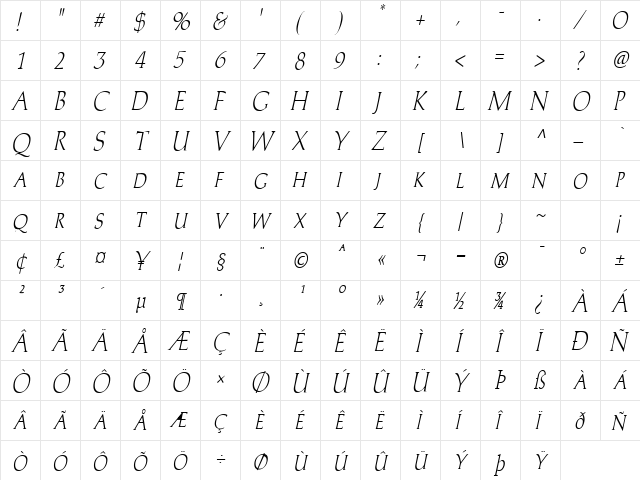
Trajan'sCapsCondensed Italic Font Preview
Design Context for Trajan'sCapsCondensed Typeface
Trajan'sCapsCondensed is a composed and adaptable typeface that performs quietly and consistently across a wide range of design contexts. The slanted form adds forward momentum and visual energy. The condensed width makes it efficient for tight spaces without sacrificing legibility.
Pro Tip: Try Trajan'sCapsCondensed for annotation and caption copy alongside an upright companion — the contrast in angle creates a dynamic but ordered typographic system.